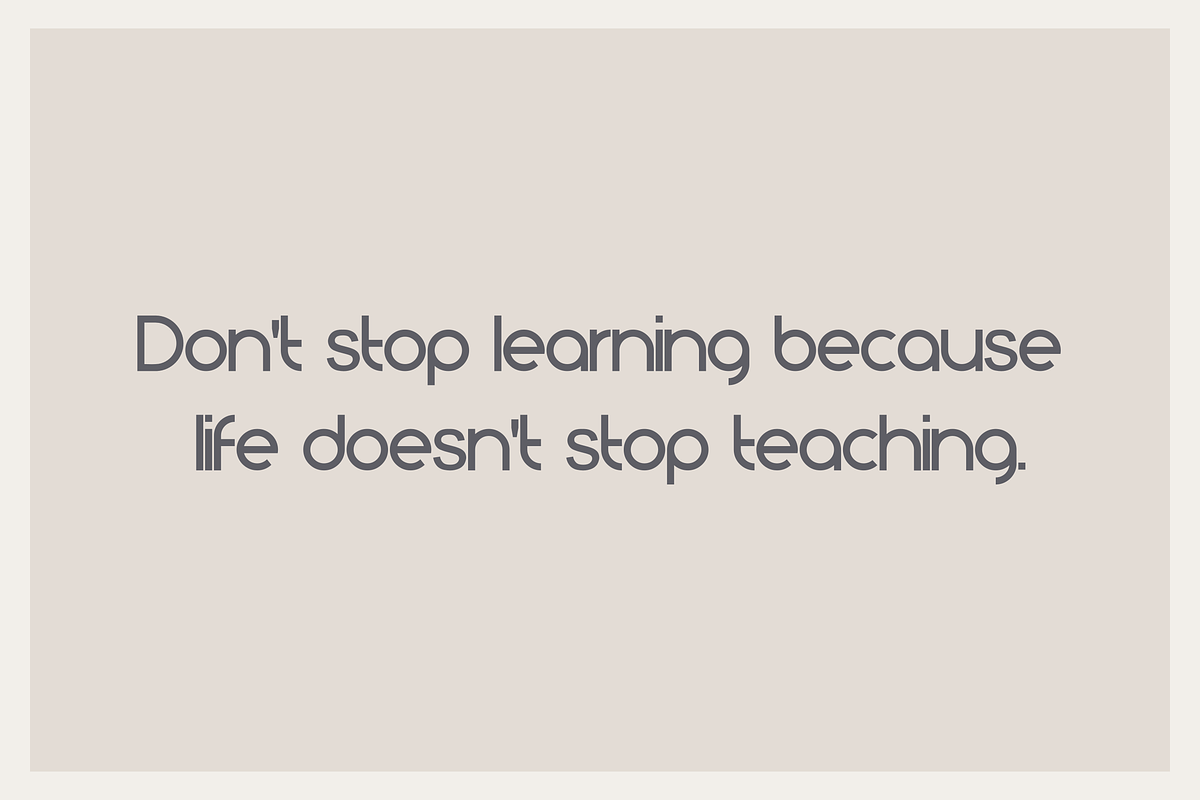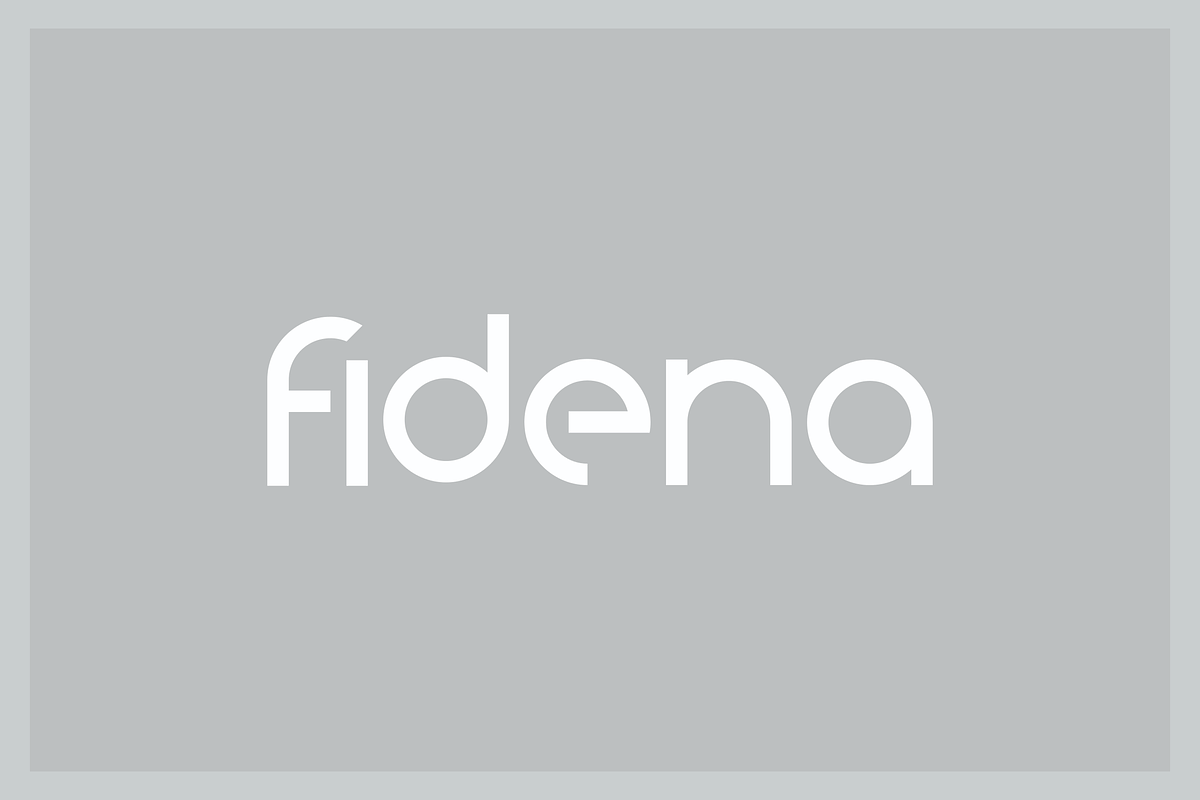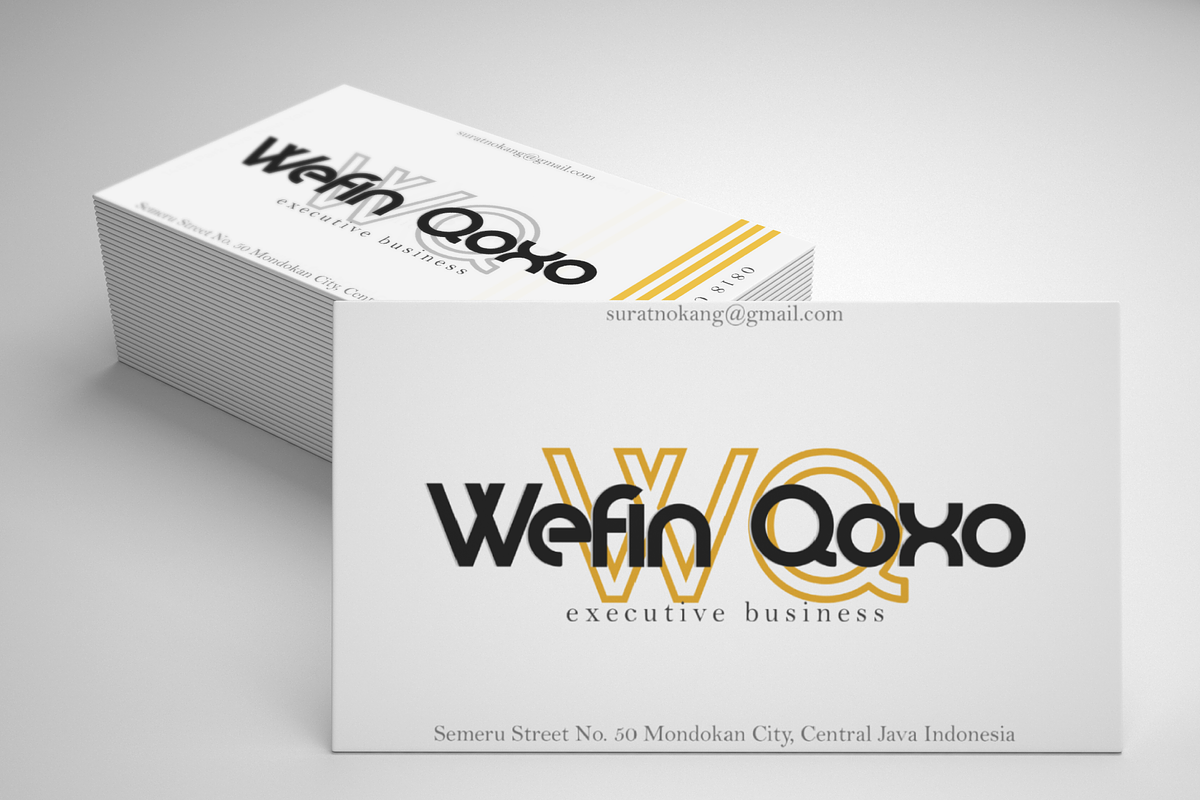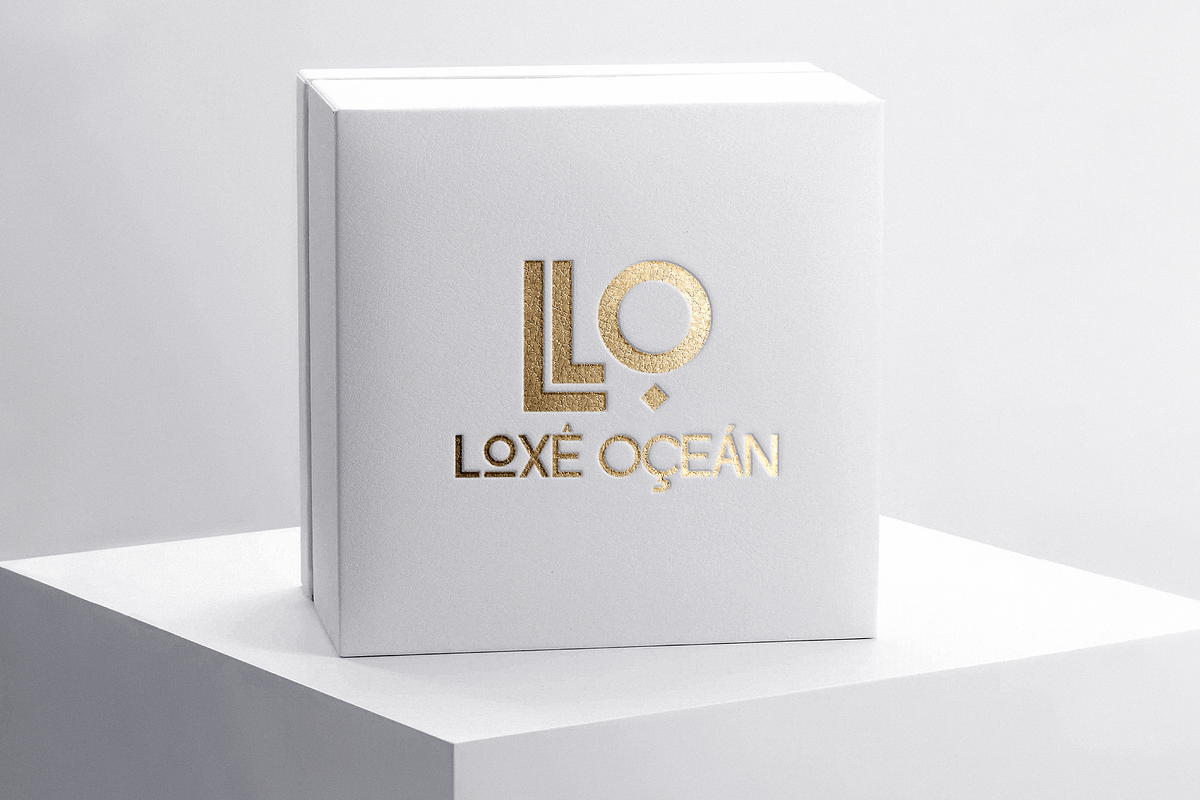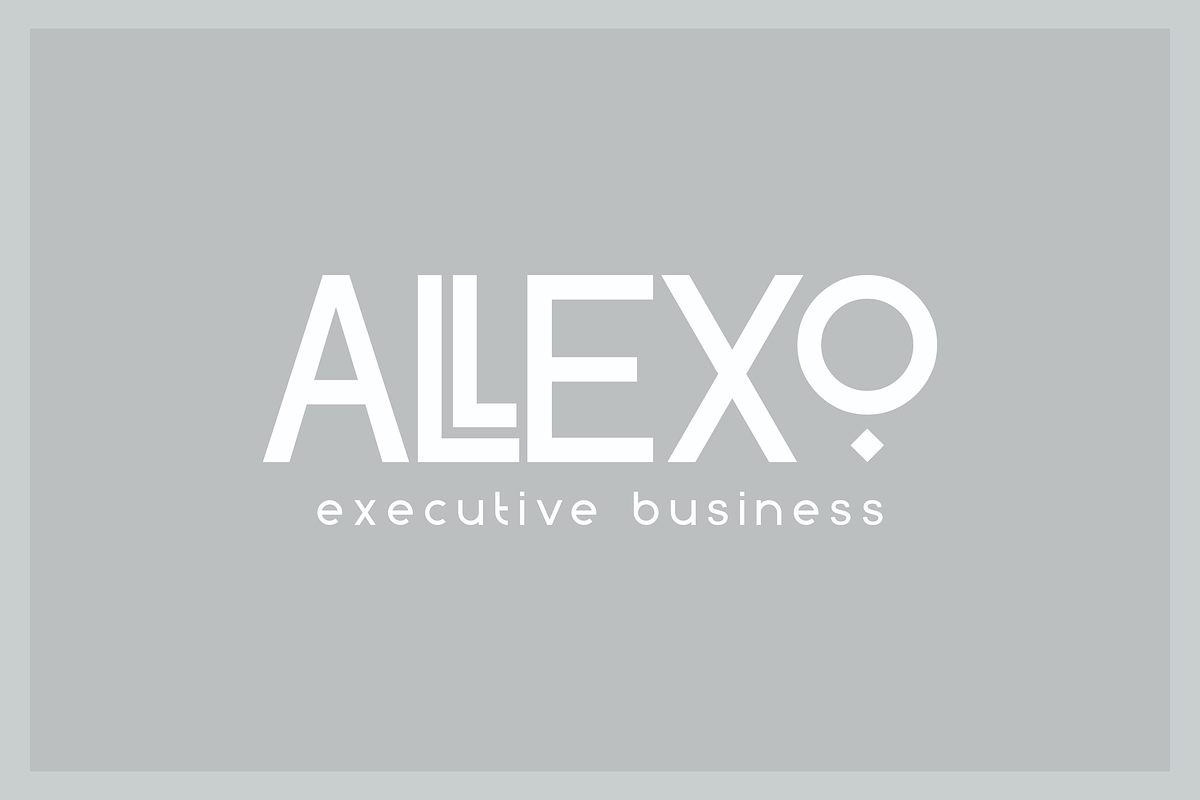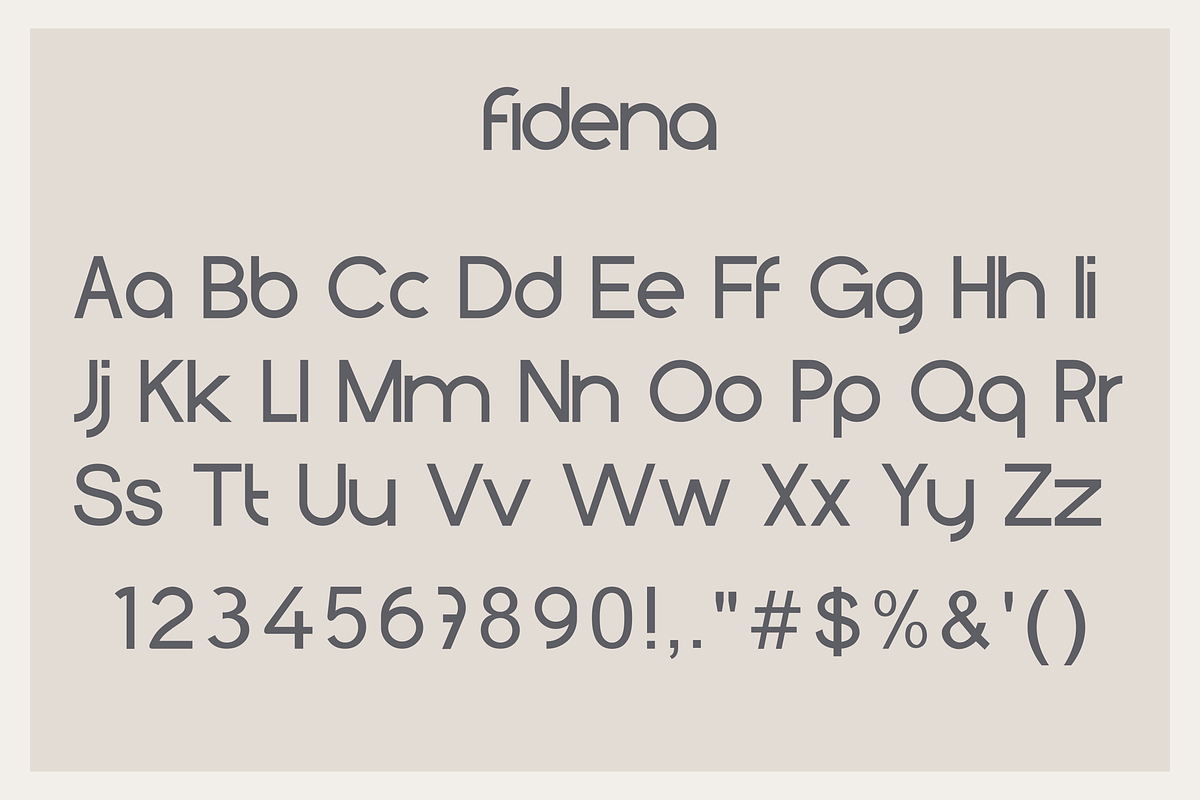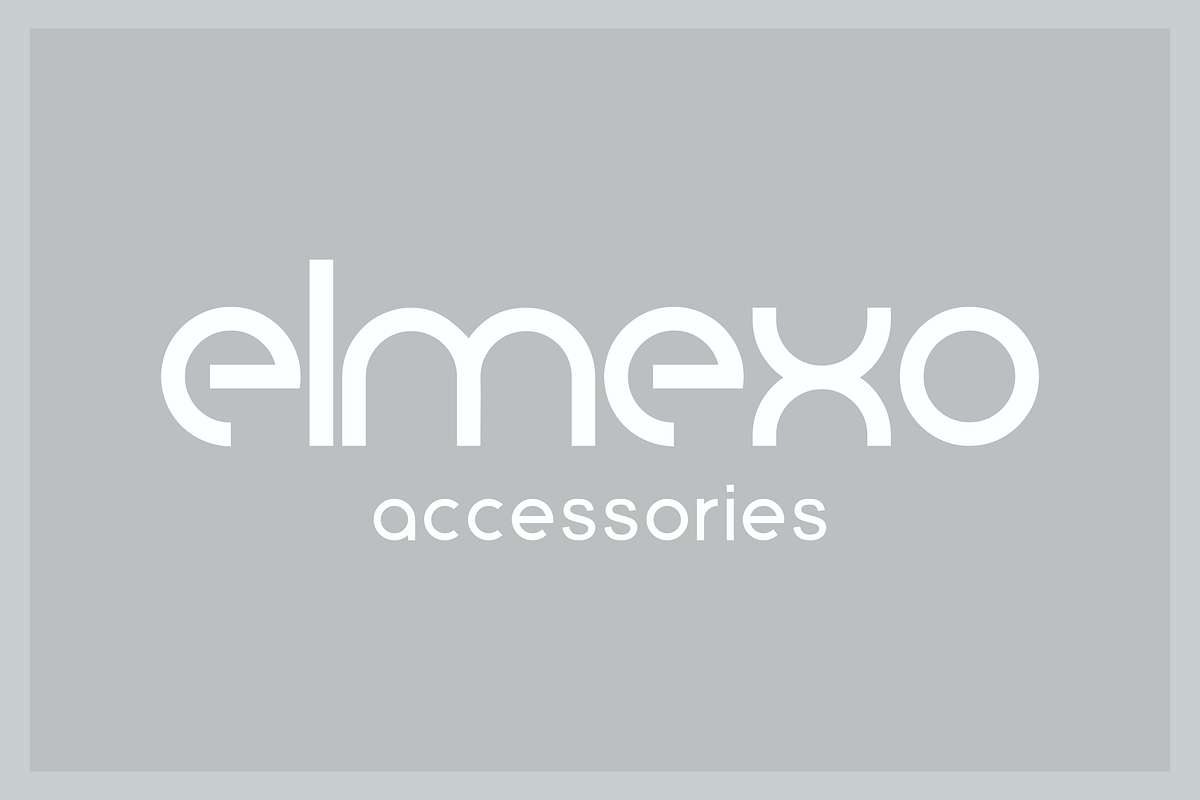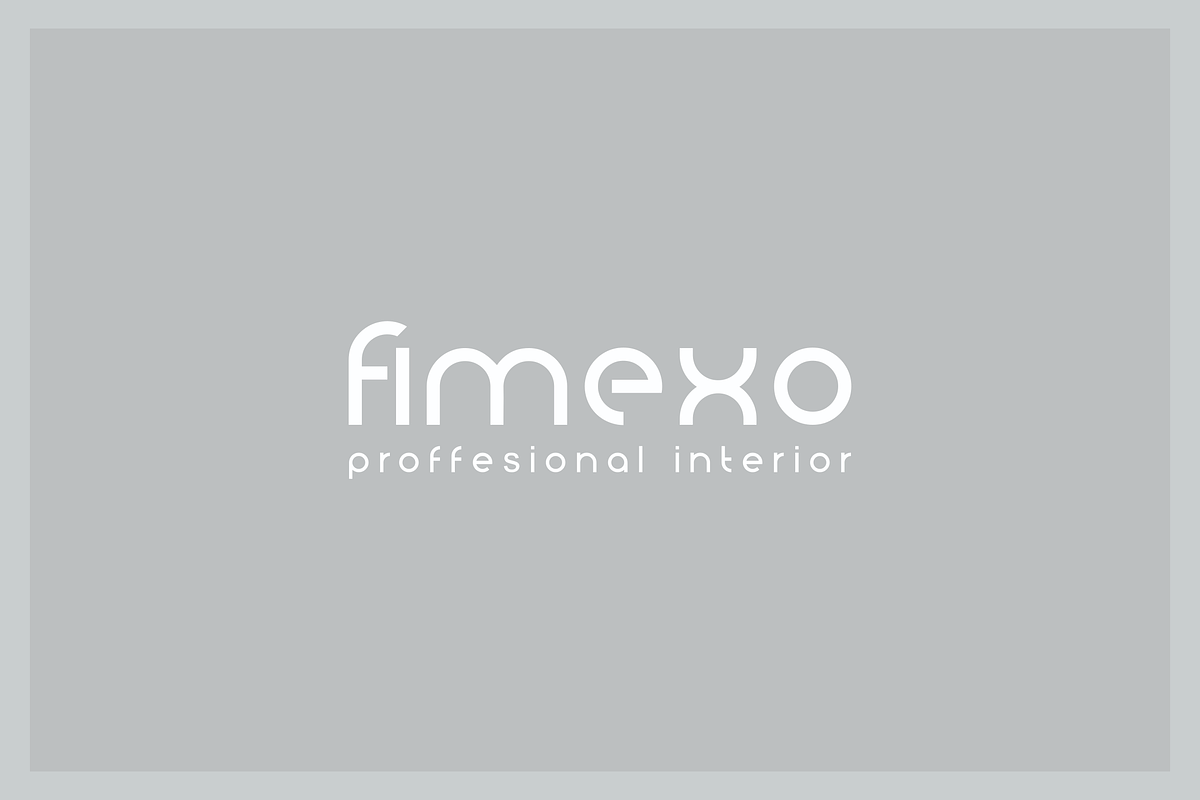
Fidena // a family font
Fidena is an elegant sans serif font. Suitable for a variety of designs because of its neat and simple style, Fidena has the potential to become your favorite font of choice, whatever the occasion! Fidena includes four extraordinary weights - ordinary, hollow, thick and thin! They all work perfectly with each other and are an ideal companion for scripts and serifs. Download this and see for yourself!
- Fidena includes four extraordinary weights - ordinary, hollow, thick and thin!
- Uppercase and lowercase letters Supports international languages Numbers, punctuation marks, some titling, alternative styles, and ligarure
- Fidena Thin
- Fidena Regular
- Fidena Bold
- Fidena Hollow
Why Fidena // a family font is worth a look